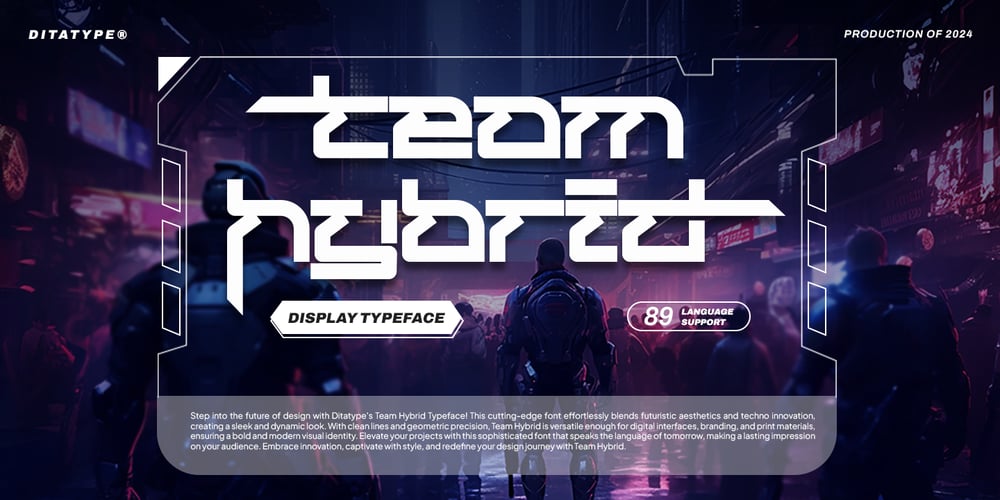
Team Hybrid Font Family was designed by Donis Miftahudin and published by Ditatype. Team Hybrid contains 1 styles and family package options. Team Hybrid is a cutting-edge display font that seamlessly blends futuristic style with techno innovation. The combination of futuristic style and techno innovation makes Team Hybrid a versatile choice to get a bold and contemporary aesthetic project.At its core, Team Hybrid is designed to evoke a sense of innovation and progress, with each letter meticulously crafted to reflect the latest in technological advancements. The clean lines and geometric shapes give the font a sleek and sophisticated appearance, while the fairly thick weight adds a sense of solidity and presence. One of the key characteristics of Team Hybrid is its ability to convey information with clarity and impact. This font ensures that your message is delivered with maximum visibility and readability. Enjoy the features here.Features: Ligatures Stylistic Sets Multilingual Supports PUA Encoded Numerals and Punctuations Team Hybrid fits in headlines, logos, posters, flyers, branding materials, greeting cards, print media, editorial layouts, and many more designs. Find out more ways to use this font by taking a look at the font preview.Thanks for purchasing our fonts. Hopefully, you have a great time using our font. Feel free to contact us anytime for further information or when you have trouble with the font. Thanks a lot and happy designing.